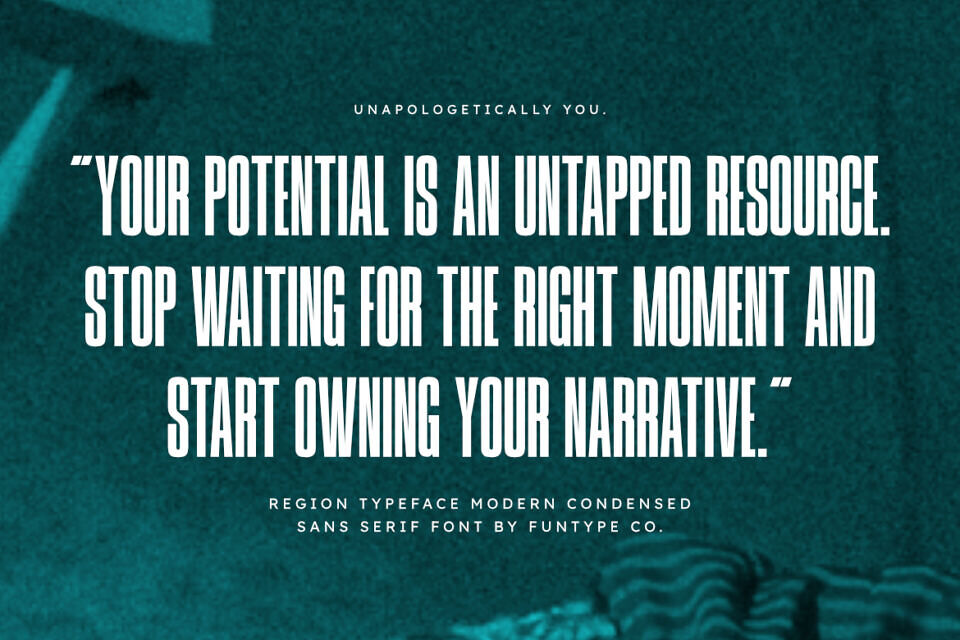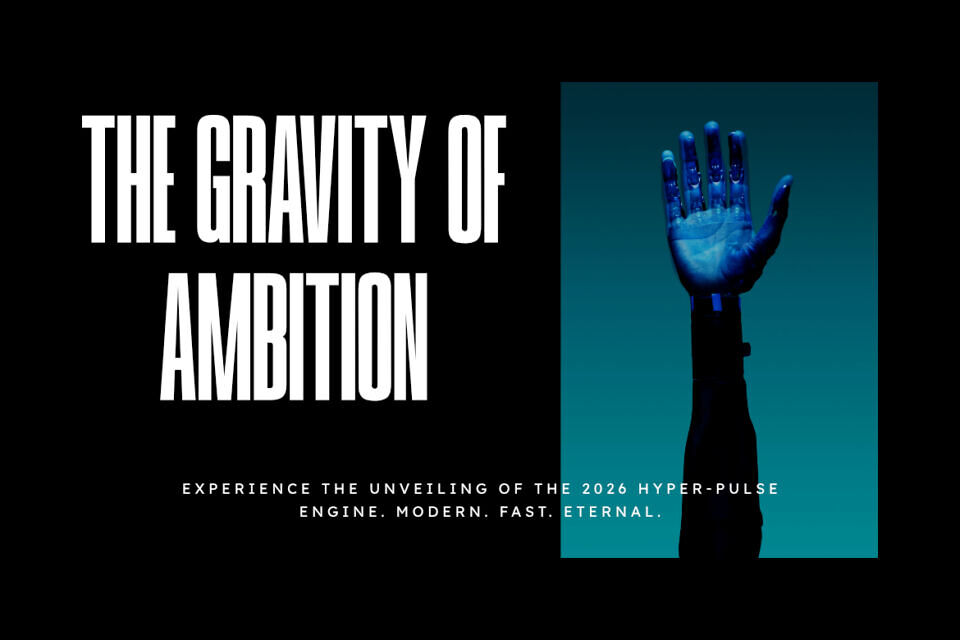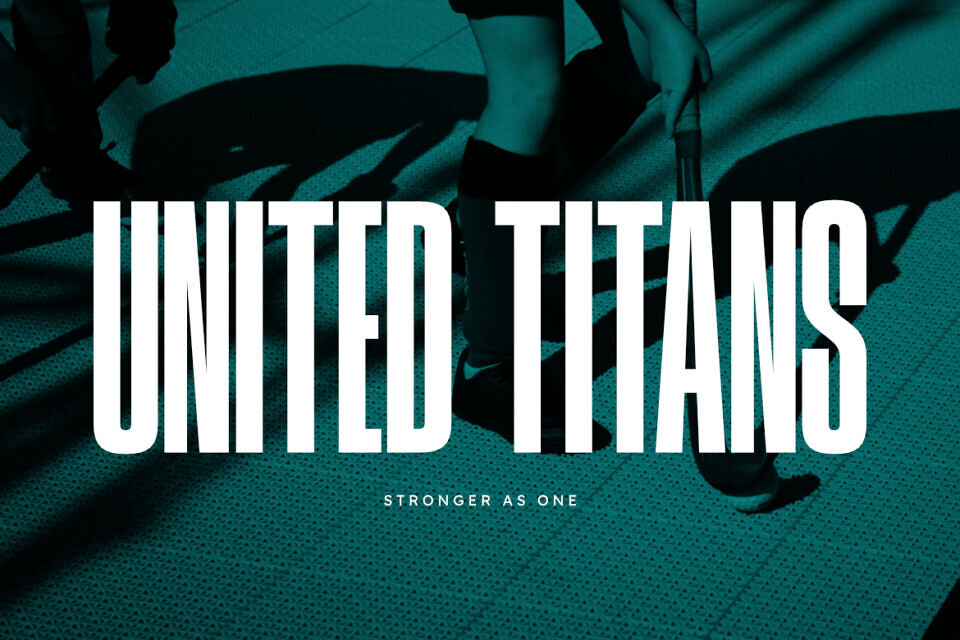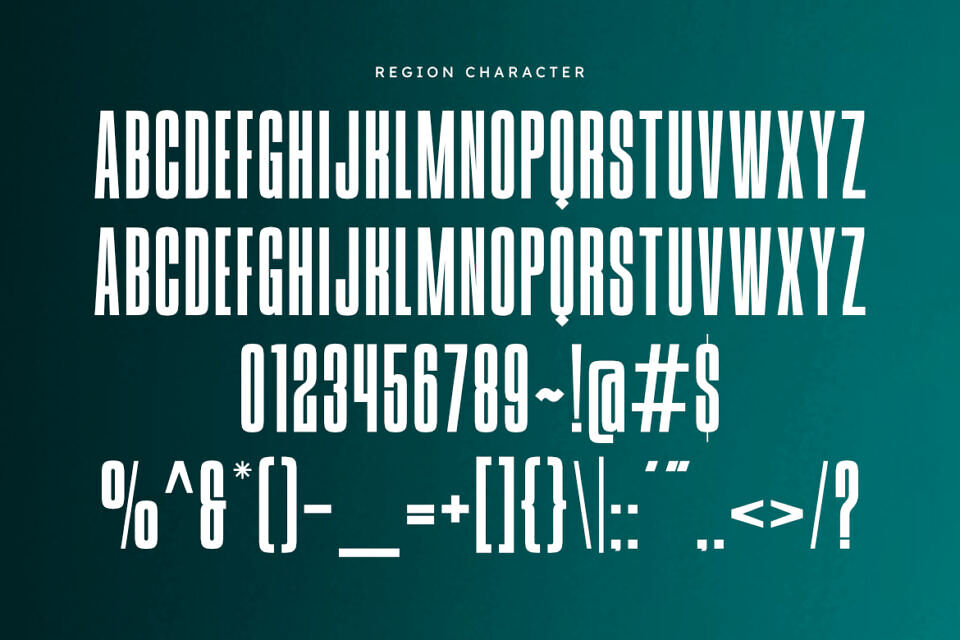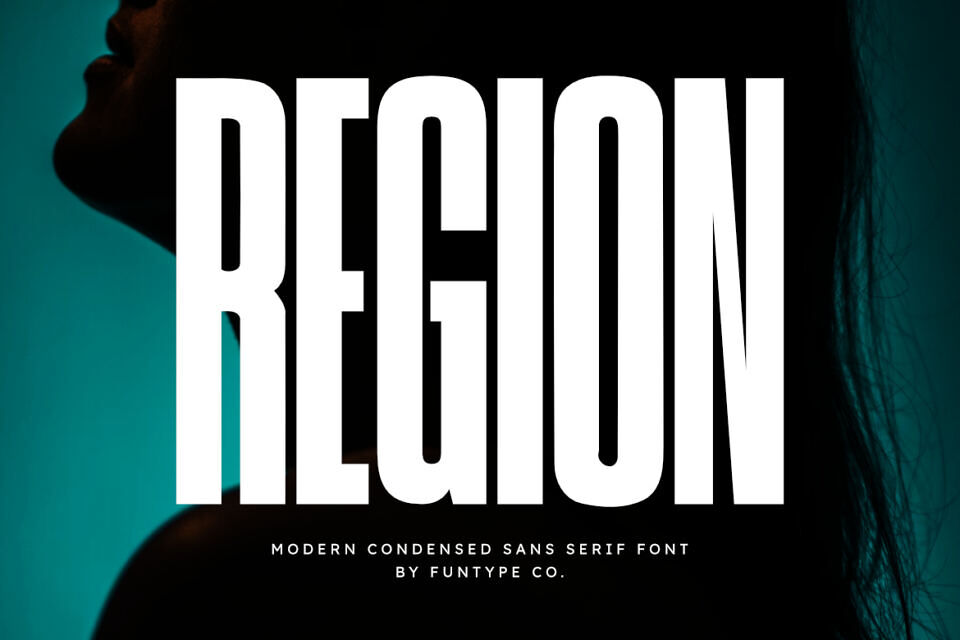
Region Font
Region is a sophisticated and powerful modern condensed sans serif font, thoughtfully designed to capture the essence of vertical impact and contemporary storytelling. With its tall, ultra-compressed structure and clean geometric lines, Region offers a professional aesthetic that brings a touch of commanding presence to any creative project.
Whether you are crafting a striking cinematic poster, a sleek technology brand identity, or bold editorial layouts, Region provides a seamless blend of modern edge and digital authority.